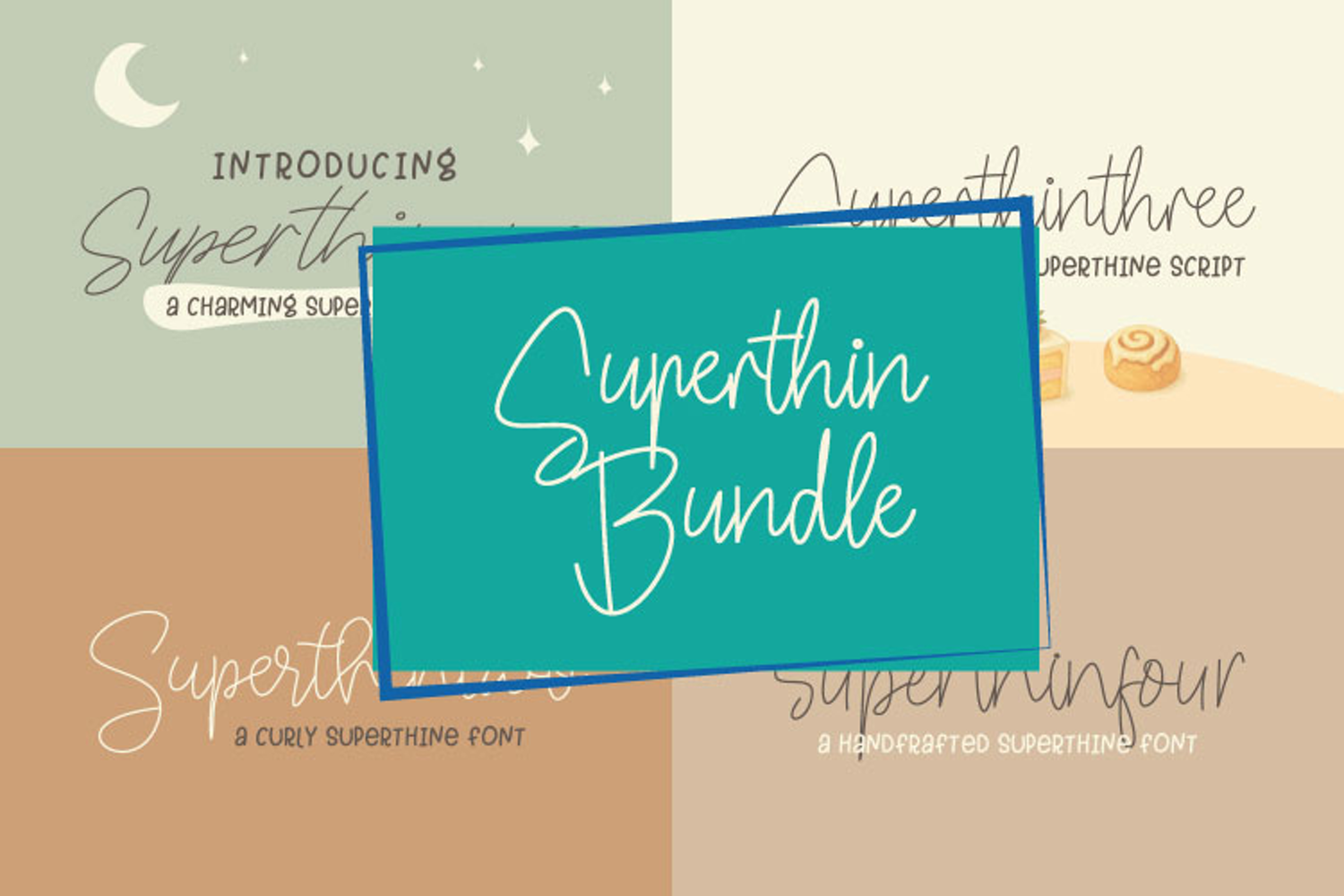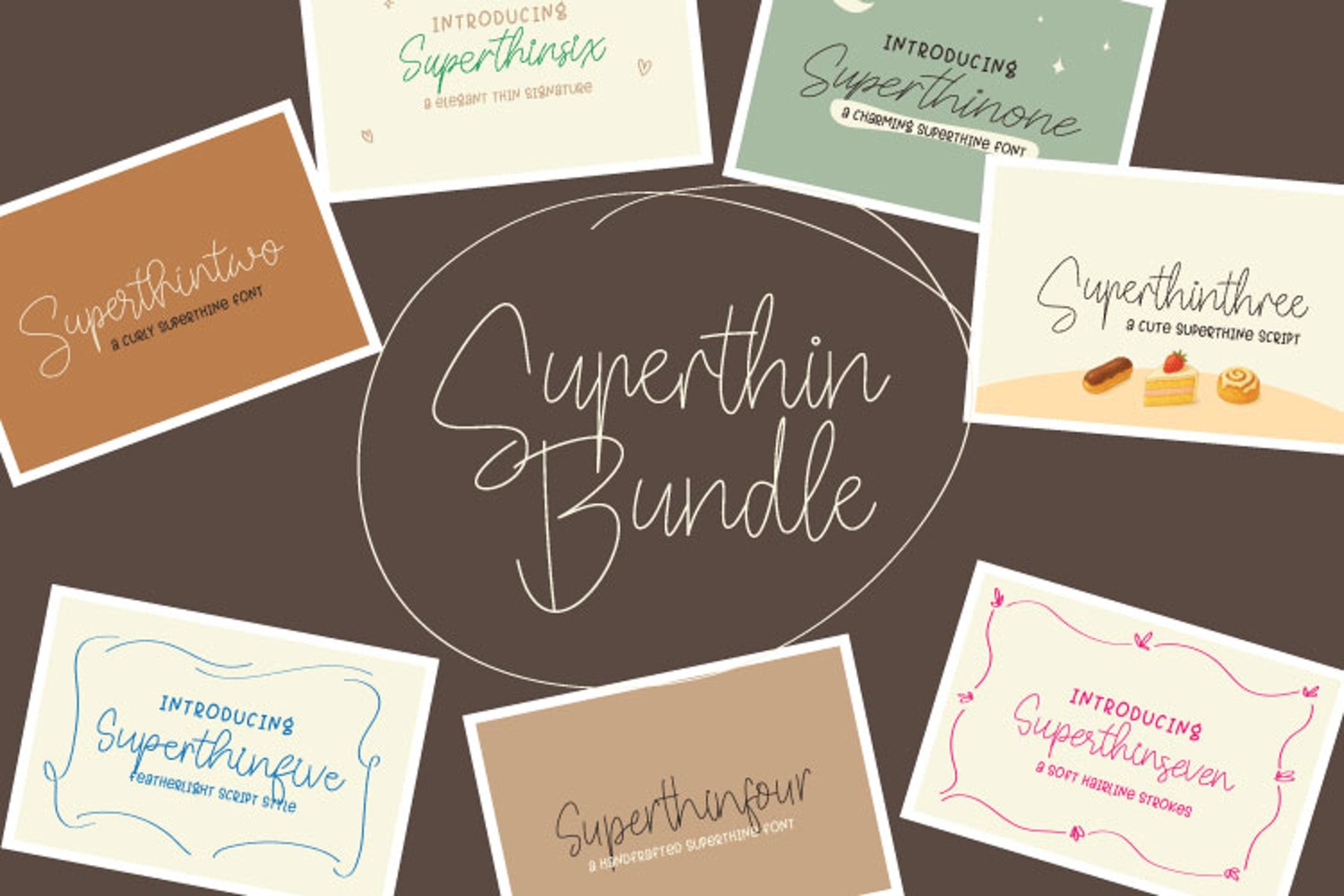
NEW SUPERTHIN BUNDLE FONT
SUPERTHIN FONT BUNDLE
7 (SEVEN) FONT SUPERTHIN INCLUDE
This script font style for Cricut Design Space
This font is super thin, it is lovely and cute font